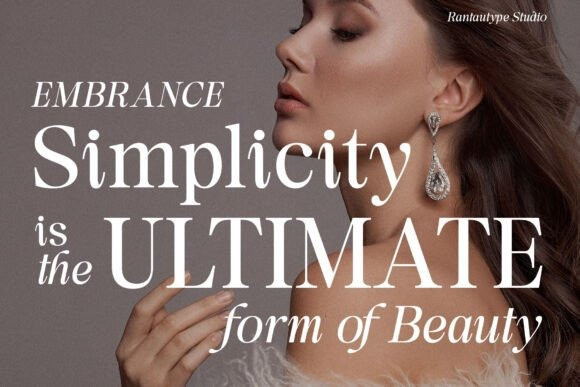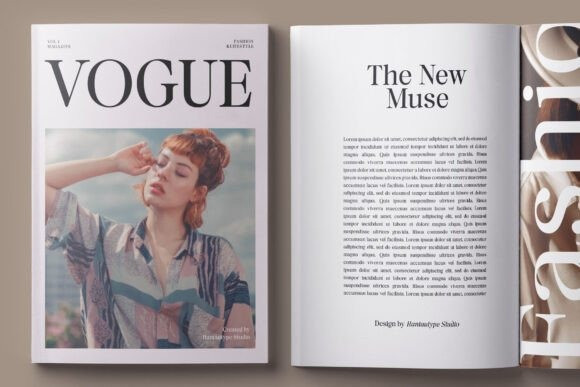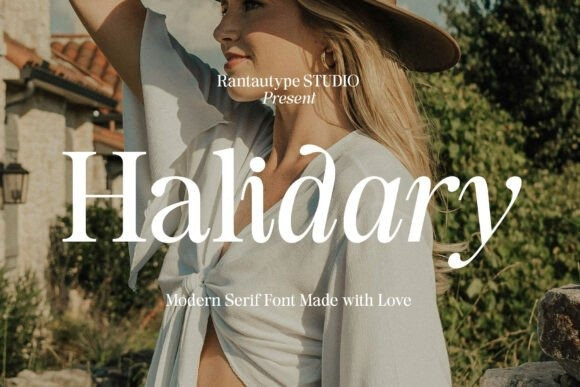
Halidary Font
Halidary Font is a modern serif font that embraces elegance. Halidary brings a touch of charm and sophistication to branding, editorial designs both come in two versions one with more contrast and crisper, you can mix and match them to create creative design project.